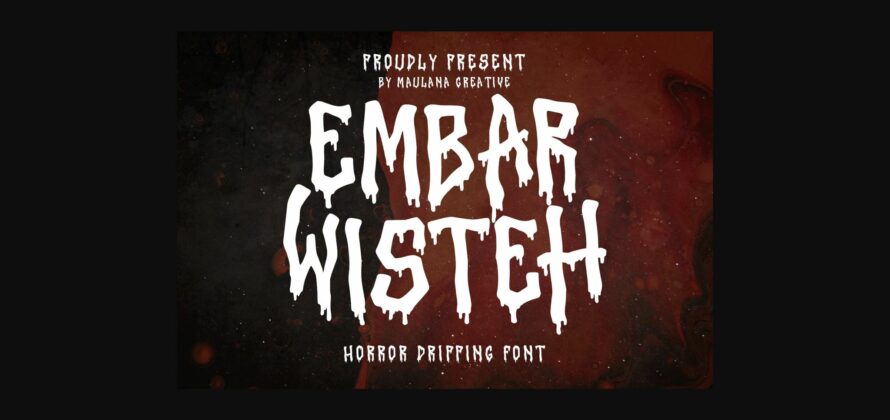
About Embar Wisteh Font
Embar Wisteh horror dripping font. Bold strokes, fun character with a bit of ligature, and alternates to give you extra creative work. Embar Wisteh horror dripping font support multilingual more than 100+ language. This font is good for logo design, Social media, Movie Titles, Books Titles, a short text even a long text letter and good for your secondary text font with script or serif. Make a stunning work with Embar Wisteh horror dripping font.